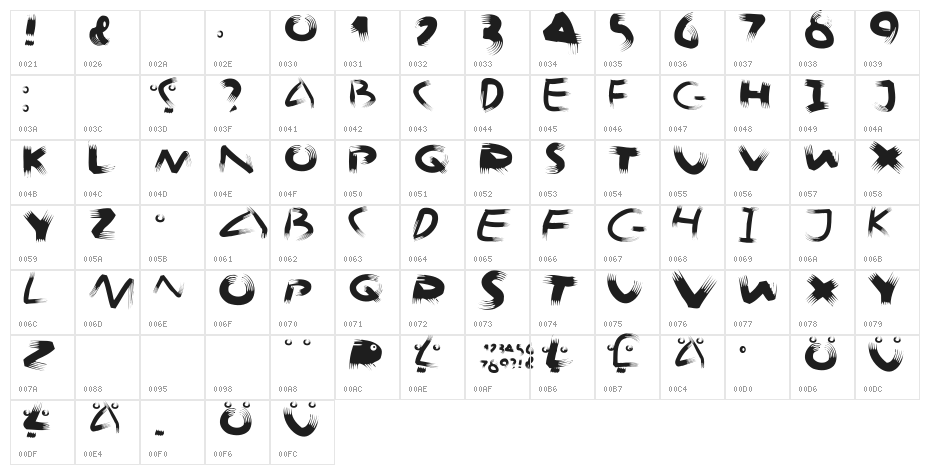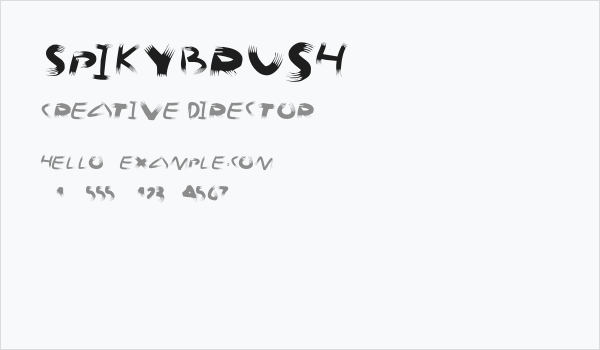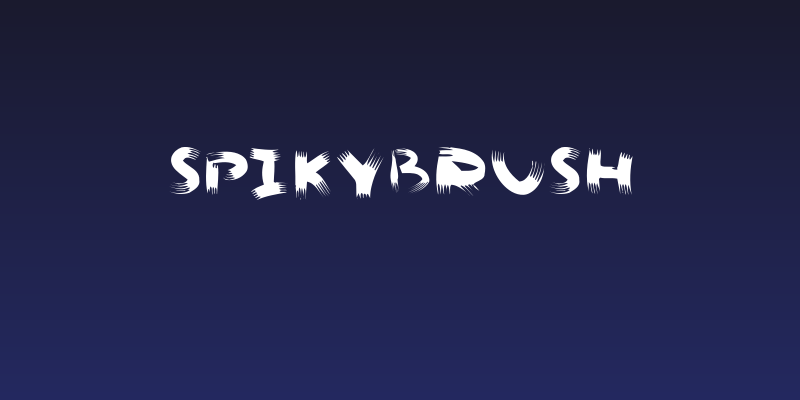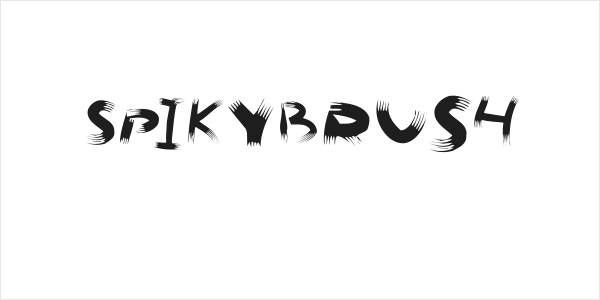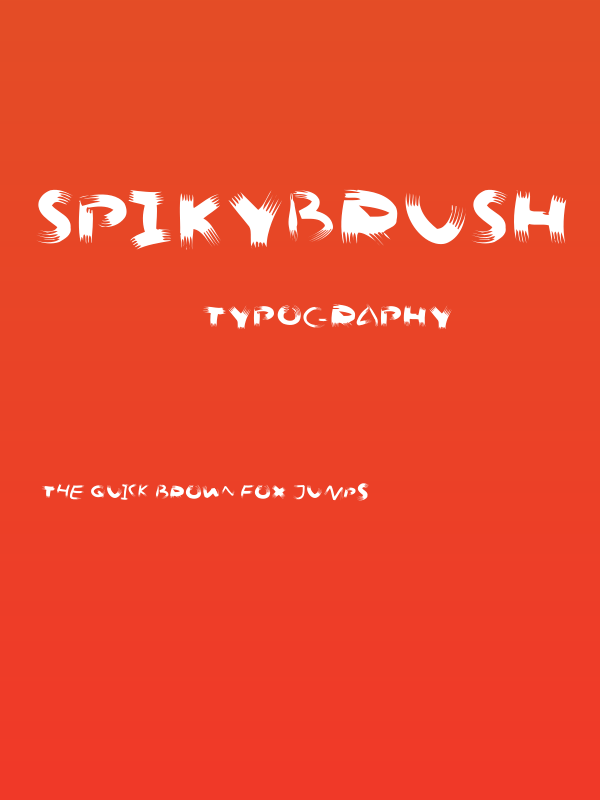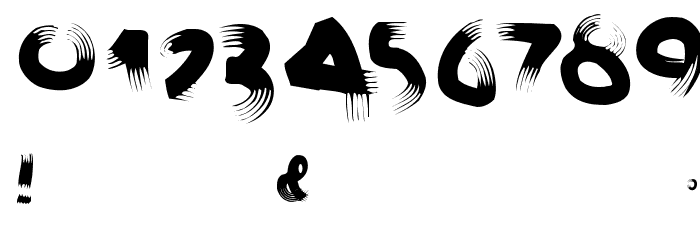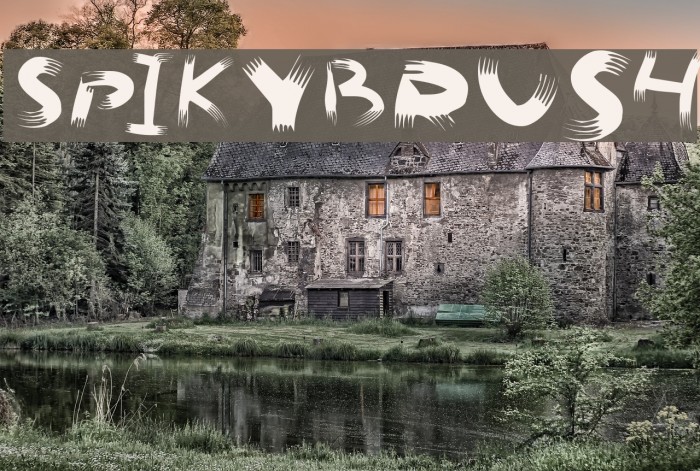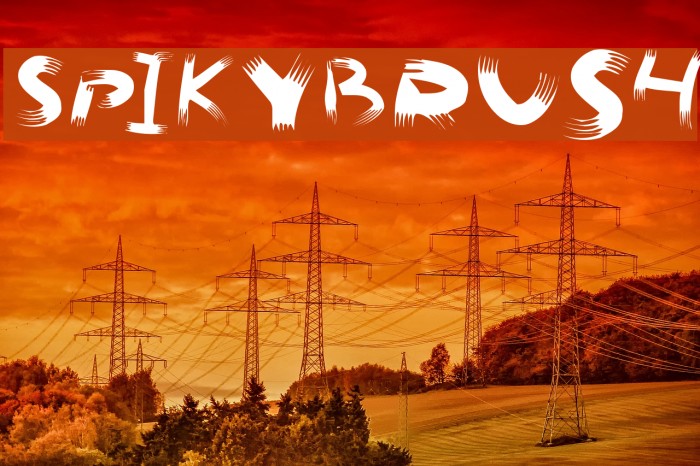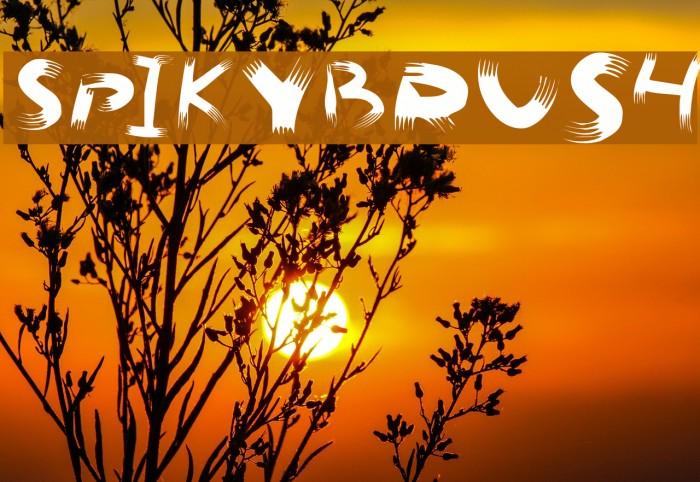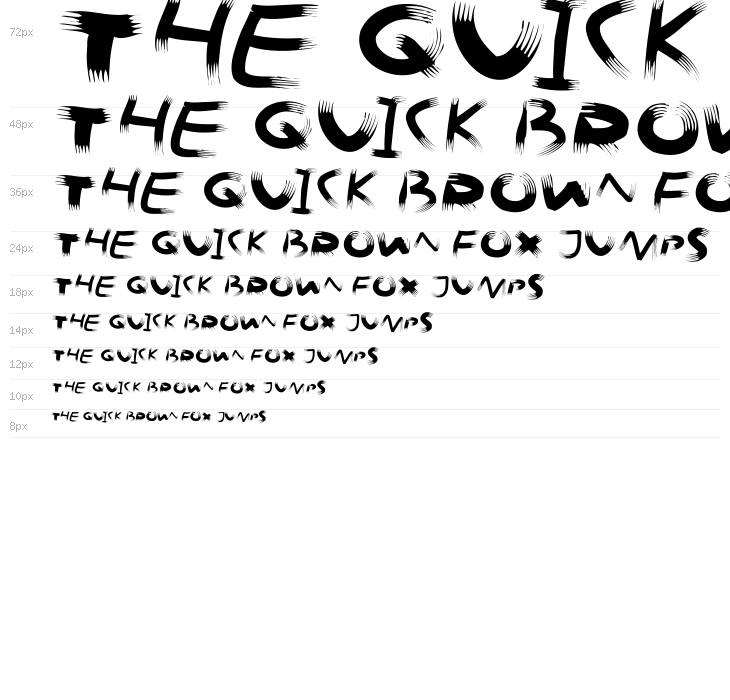
SpikyBrush Font
SpikyBrush Description
This font features a dynamic and energetic style, characterized by its spiky, brush-like strokes that give it a sense of movement and intensity. The letters are bold and expressive, with each character exhibiting unique brush textures that create a sense of depth and dimension. The uppercase and lowercase letters maintain a consistent style, while the numerals and special characters complement the overall aesthetic. This font's distinctive appearance makes it ideal for projects that require a bold and artistic touch.
| Overall Style | Modern, Artistic |
| Proposed Projects | Ideal for posters, album covers, branding, and any project needing a bold, artistic flair. |